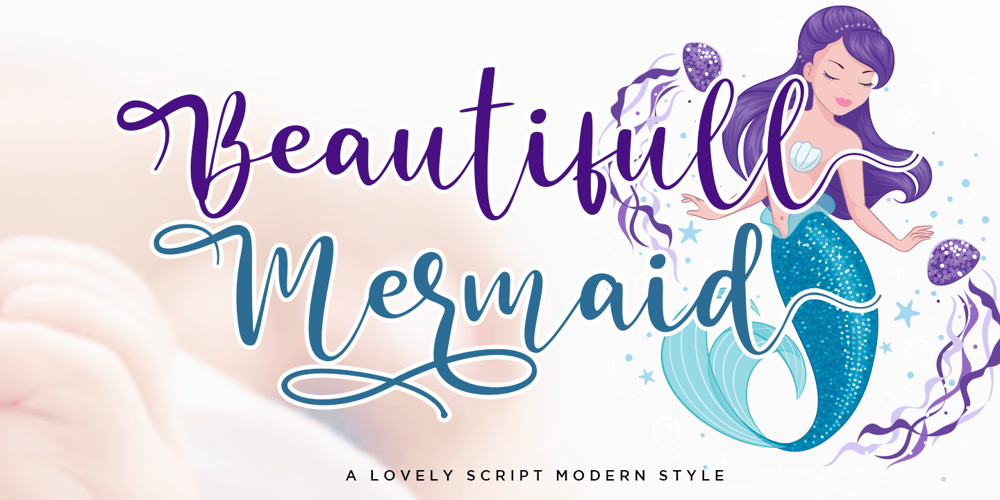
Beautifull Mermaid
Beautifull Mermaid font
Beautifull Mermaid Font Family was designed by Sarwo Edhi Prayitno and published by Haksen. Beautifull Mermaid contains 1 styles and family package options. “Beautifull Mermaid” is a stylish modern handwritten script font with casual chic flair. It is perfect for branding, signature, wedding invitation, promotion, product packaging, and other needs.You will get full set of lowercase and uppercase letters, numerals and punctuation, multilingual symbols, ligatures and extra swashes that giving realistic hand-lettered style.In order to use the beautiful swashes, you need a program that supports OpenType features such as Adobe Illustrator, Adobe Photoshop, Adobe Indesign and Corel Draw.Thanks and have a wonderful day,Haksen Std